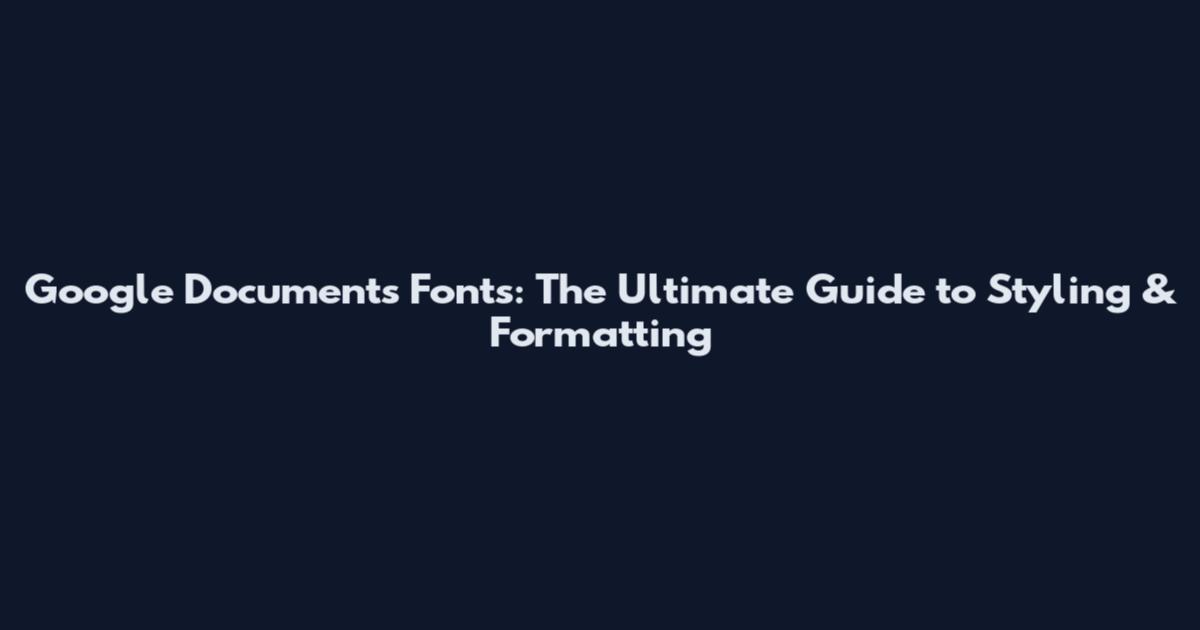
Google Documents Fonts: The Ultimate Guide to Styling & Formatting
Google Documents offers a flexible set of font options that shape how your documents look and feel. Choosing the right typeface and settings can improve readability, match your brand, and streamline collaboration across teams.
Below is a quick reference that compares common Google Documents fonts and their best use cases, so you can match the typeface to your content goals.
Font Family Style Vibe Best For Web Safe
Montserrat Geometric, modern Presentations, clean headings Yes
Open Sans Neutral, legible Reports, long-form reading Yes
Lato Friendly, balanced Screens and print mixes Yes
Roboto Tech-forward, precise Apps, digital docs Yes
Merriweather Classic, high contrast Newspaper-style articles Yes
Choosing the right font for readability and professionalism
Readability is the backbone of effective documents. Google Documents fonts like Open Sans and Merriweather are crafted for extended text, reducing eye strain with balanced x-heights and clear letterforms. For internal reports, theses, and policy briefs, these choices help your audience focus on content rather than decoding letters.
Professional contexts demand consistency and clarity. Pair a neutral body font such as Open Sans with a subtle heading typeface like Lato to create a visual hierarchy. Limit your document to two or three typefaces to keep the layout clean and maintain a polished, corporate-ready appearance.
Collaboration tools amplify these choices because team members see the same typefaces in real time. When everyone uses standardized options available in Google Documents, there is less risk of formatting shifts during review. Consistency across devices and platforms supports stronger communication and fewer revision cycles.
Brand alignment and visual hierarchy with type
Your type choices signal credibility and personality. Google Documents fonts allow you to align document styling with brand guidelines by selecting weights, sizes, and colors that reflect your organization’s tone. Use bolder weights and tighter kerning for headlines, and lighter, open styles for body text to guide readers naturally through sections.
<pVisual hierarchy is built through contrast in scale, weight, and color rather than introducing too many families. A single sans for interface-like documents, or a serif body with a simple sans heading, can communicate structure without clutter. Keep spacing, line height, and margin rhythms deliberate so the hierarchy feels calm and organized.
Using Google Fonts inside Google Documents
Google Documents pulls from Google Fonts, giving you access to hundreds of typefaces without leaving the editor. You can search by style categories such as sans, serif, display, and monospace to match the mood of your project. Apply a font globally or to selected text, and remember that some decorative options work best in small doses for headers or callouts rather than long paragraphs.
Format controls and accessibility considerations
Beyond typeface selection, Google Documents lets you adjust size, line spacing, and color to improve legibility and meet accessibility standards. Larger body sizes, ample line spacing, and sufficient contrast between text and background help readers with visual sensitivities. Use semantic heading styles to structure documents so screen readers and navigation tools can interpret them correctly.
When sharing documents outside your team, consider how embedded fonts and download formats preserve your design. Downloading as PDF usually locks type and layout, while plain text or DOCX exports may substitute fonts on different systems. Test key documents on multiple devices to confirm that critical branding and readability choices remain intact.
Can I use Google Fonts directly in Google Documents?
Yes, Google Documents includes many Google Fonts, and you can browse them in the font picker to apply them to your text.
Will my document fonts change when someone else edits it?
If you use standard Google Documents fonts, the appearance will stay consistent. Custom fonts may fall back to a similar system font on other devices if they are not available.
How do I make my document more accessible through font choices?
Choose high-contrast color pairs, avoid overly stylized fonts for body text, and use larger, legible sizes with consistent spacing to support readability.
What happens if I download my document and the fonts look different?
Exporting as PDF preserves most formatting. When exporting to other formats, some fonts may be replaced by similar system alternatives, so always review the final file.
Optimizing documents for collaboration and long-term use
• Pick one or two readable fonts and stick with them to avoid visual noise.
• Use built-in Google Documents fonts for maximum compatibility during collaboration.
• Leverage heading styles to create clear navigation and improve accessibility.
• Preview documents on different devices and export to PDF before final sharing.
• Test color contrast and font sizes for readers with low vision or cognitive preferences.